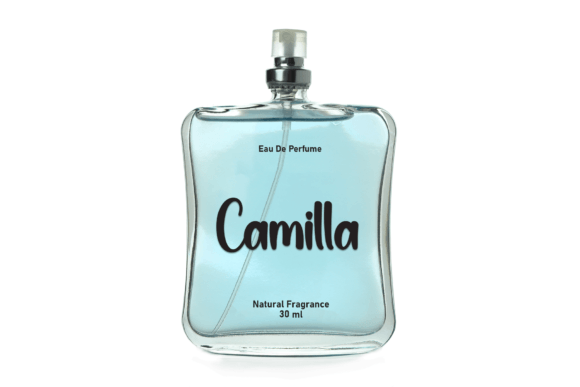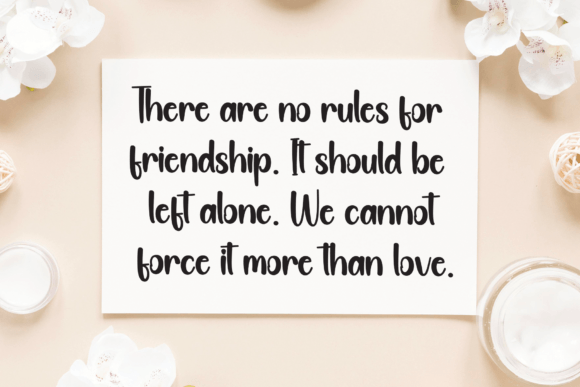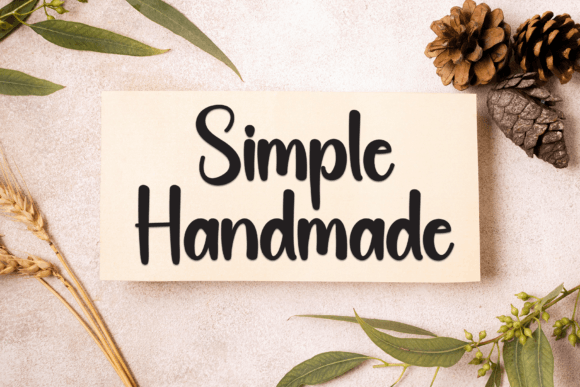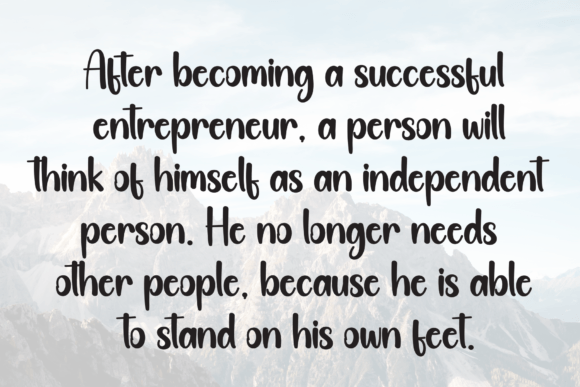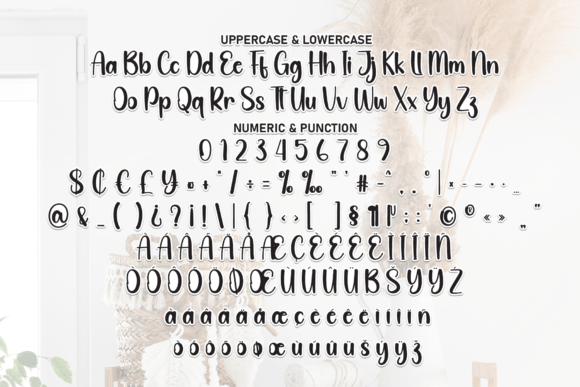
Discover the Whimsical World of Handmade Fonts: Adding a Personal Touch to Your Designs
Immerse yourself in the charming realm of typography with handmade fonts, where each letter and glyph is a testament to the beauty of human touch. Among these, one particular font stands out for its cuddlesome and fun nature, designed to infuse a delightful touch into your projects. Whether you’re crafting enchanting wedding invitations, heartfelt cards, or any design that craves a sprinkle of amusement, this handwritten font is your perfect companion.
The Allure of Handmade Fonts
In an era dominated by digital precision, handmade fonts offer a refreshing respite. They bring with them the imperfections and warmth that only a human hand can provide. This unique characteristic makes them incredibly versatile, suitable for a wide array of design needs. From the rustic charm of handwritten notes to the sophisticated elegance of bespoke wedding invitations, handmade fonts can elevate your designs, making them more engaging and personal.
Features of the Handmade Font
This particular handmade font is a treasure trove of typographic delights. Here are some of its standout features:
- Unique Character: Each letter and glyph in this font is meticulously crafted, ensuring that no two characters are exactly alike. This uniqueness adds a layer of authenticity and charm to your designs.
- Emotional Connection: The warmth and personality infused in this font help create an emotional connection with your audience. It’s perfect for designs that aim to evoke feelings of nostalgia, love, or friendship.
- Versatility: Despite its playful nature, this font is incredibly versatile. It can be used in a variety of contexts, from formal to informal, making it a valuable addition to any designer’s toolkit.
- Ease of Use: Designed with the user in mind, this font is easy to integrate into your projects, ensuring a seamless design experience.
Applications of the Handmade Font
The applications of this handmade font are as varied as they are exciting. Here are a few ideas to get you started:
- Wedding Invitations: Add a touch of whimsy and romance to your wedding invitations, making them truly unforgettable.
- Stationery: From greeting cards to personal letters, this font can add a personal touch to your stationery, making it more heartfelt and engaging.
- Branding: For brands looking to convey a sense of warmth and approachability, this font can be a great asset in creating a friendly and inviting brand identity.
- Digital Content: Whether it’s blog posts, social media content, or website headers, this font can add a playful and personal touch to your digital content, making it more engaging for your audience.
Tips for Using Handmade Fonts Effectively
To make the most of this handmade font, consider the following tips:
- Pair with Complementary Fonts: For maximum impact, pair this font with more straightforward, sans-serif fonts to create a balanced and visually appealing design.
- Play with Sizes and Colors: Don’t be afraid to experiment with different sizes and colors to add depth and interest to your designs.
- Consider Your Audience: Ensure that the whimsical nature of the font aligns with your audience’s expectations and preferences.
Handmade fonts, with their unique charm and character, offer a refreshing alternative to conventional typography. This particular font, with its cuddlesome and fun nature, is poised to add a delightful touch to your projects, making them more engaging and memorable. Whether you’re a designer looking to expand your typographic repertoire or a crafter seeking to add a personal touch to your creations, this handmade font is sure to enchant your audience, making each script a captivating journey into the enchanting world of letters and glyphs.
So, let the intrinsic warmth of this font guide your design journey, infusing your projects with a sense of whimsy and personal connection that resonates with your audience. Dive into the charming realm of typography with this handmade font and discover the difference that a human touch can make.